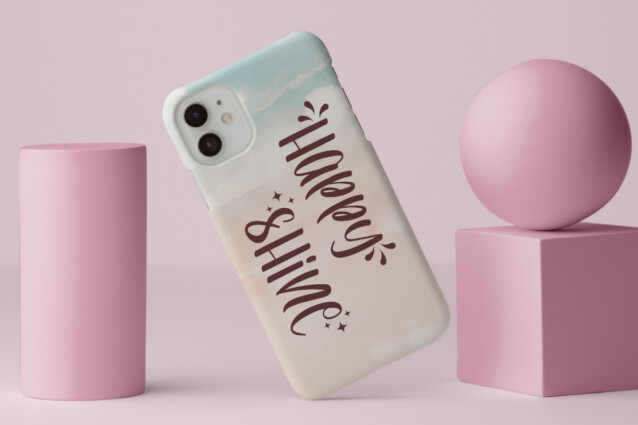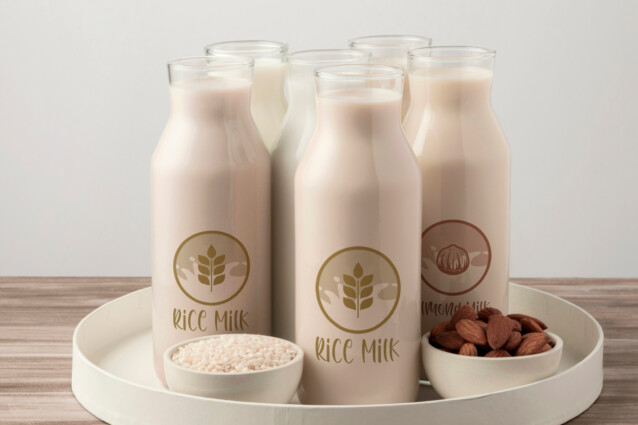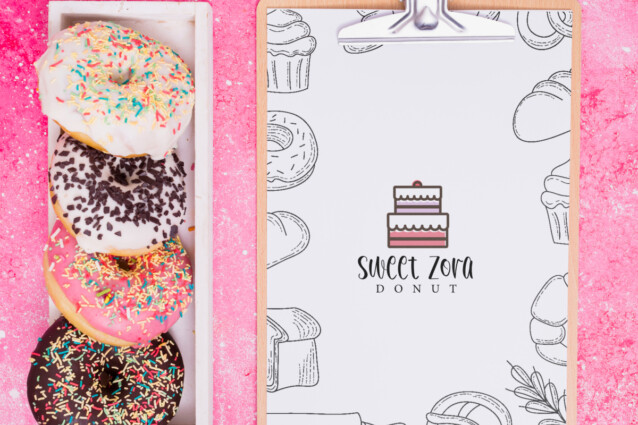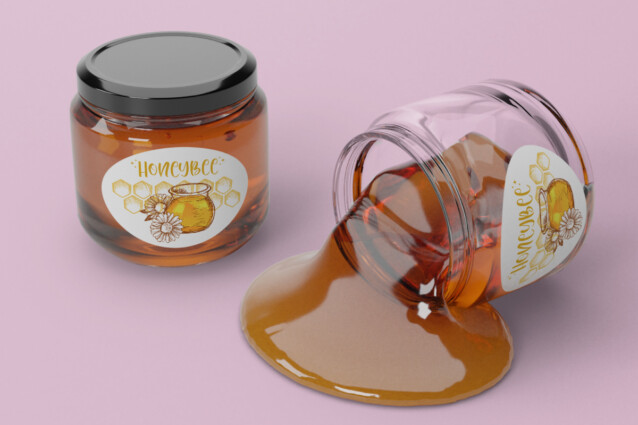
Happy Shine Font
Happy Shine Font is a beautiful display font full of joy in it. It feels modern in style with cute brush strokes on each character. Just like it’s name, “Happy Shine” is able to bring out the radiant light of happiness that always accompany you in any project, such as apps, billboard, brand logo, brochure, flyer, label, menu, poster, product packaging, quote, screen print, signage, stationery, sticker, title, website, and many more.